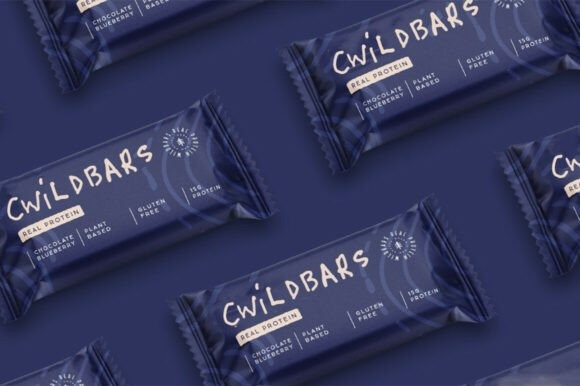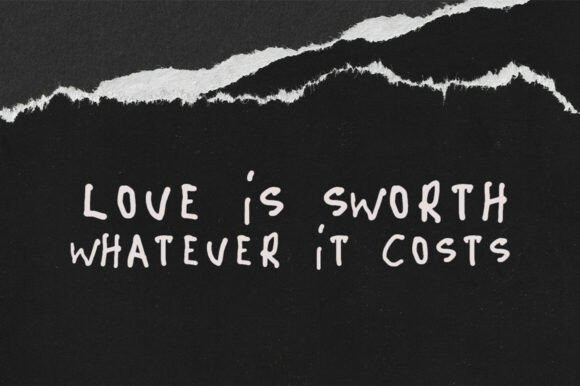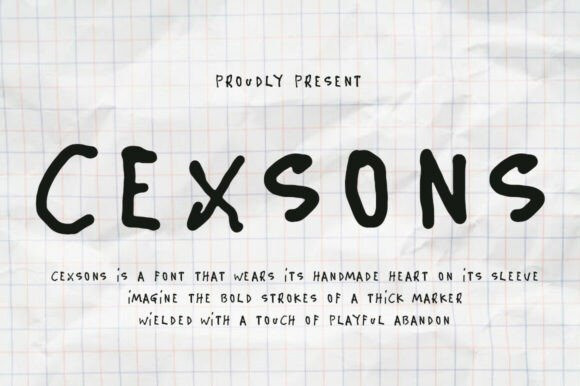
Cexsons Font
Cexsons Font is a font that wears its handmade heart on its sleeve. Imagine the bold strokes of a thick marker, wielded with a touch of playful abandon. Each letter possesses a unique, slightly irregular charm, hinting at the human hand that brought it to life